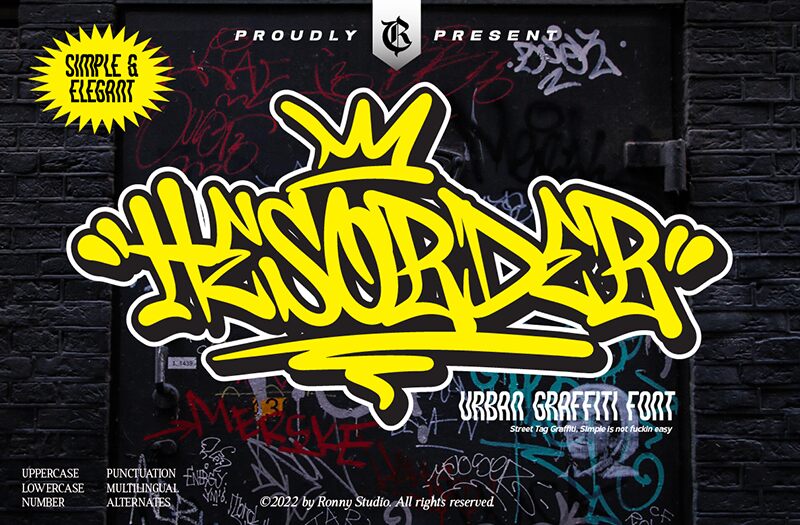
Hesorder, a captivating graffiti-style font crafted by Ronny Studio, exudes a bold and dynamic energy. This condensed typeface boasts intricate, angular letterforms that effortlessly capture the raw, expressive nature of street art. The striking black and white aesthetic creates a visually striking contrast, drawing the eye and commanding attention. Hesorder's unique character and rebellious flair lend themselves seamlessly to a wide range of design applications, from gritty urban branding to edgy editorial layouts.
This versatile font shines in projects that aim to convey a sense of raw authenticity and youthful rebellion. Its condensed width makes it an excellent choice for headlines, logotypes, and impactful typographic compositions where space is limited. Hesorder's dynamic, graffiti-inspired aesthetic also lends itself well to packaging design, album covers, and promotional materials targeting a younger, more progressive audience.